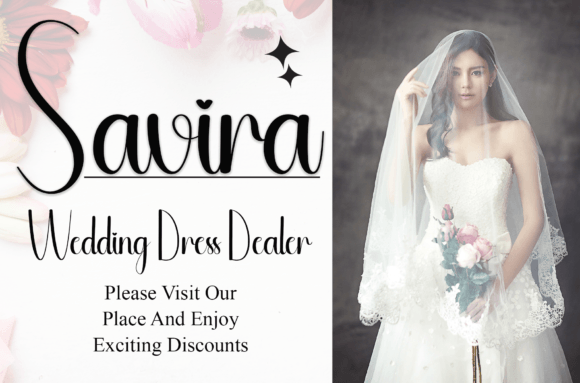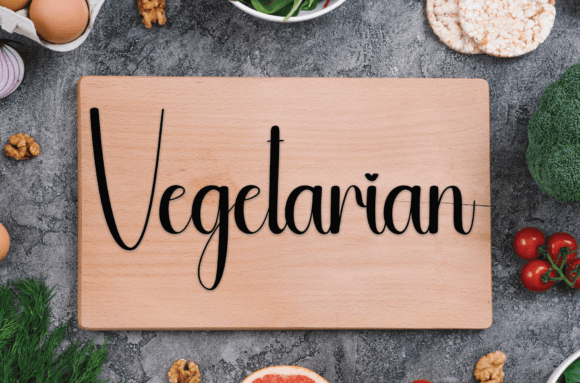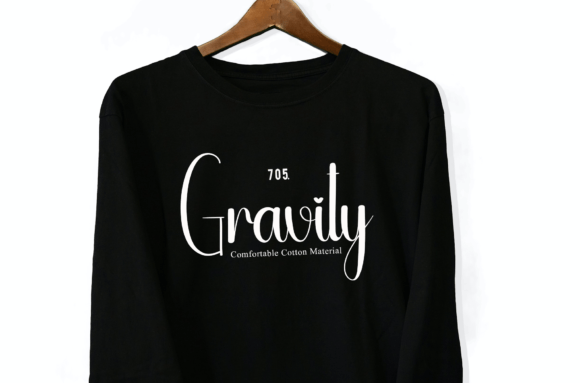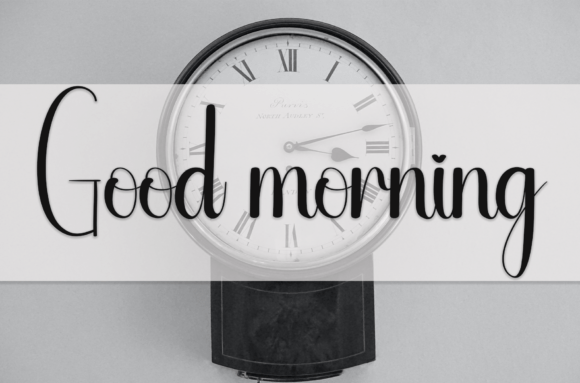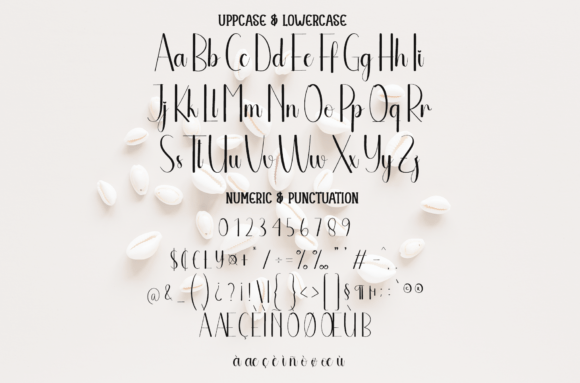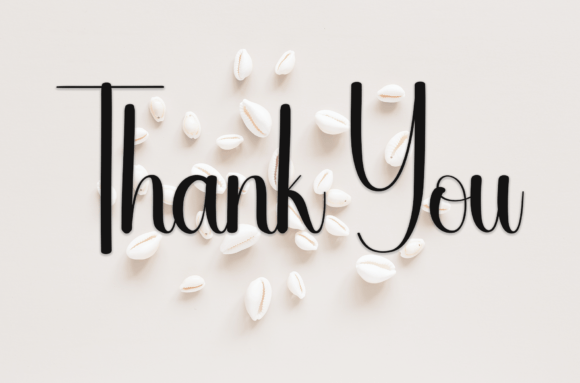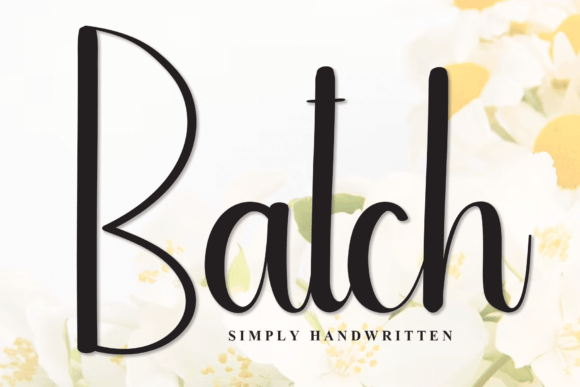
Introducing Batch Font: The Sweet and Friendly Handwritten Font for Your Creative Projects
Are you looking for a font that can add a touch of warmth and personality to your designs? Look no further than Batch Font, a sweet and friendly handwritten font that’s perfect for a variety of creative projects. In this article, we’ll take a closer look at Batch Font, its features, and how you can use it to elevate your designs.
What is Batch Font?
Batch Font is a beautifully crafted handwritten font that’s fresh, neat, and full of character. Its sweet and friendly tone makes it an ideal choice for designs that require a personal touch. Whether you’re creating wedding invitations, greeting cards, or any other type of design that needs a fun and playful twist, Batch Font is the perfect choice.
Key Features of Batch Font
So, what makes Batch Font so special? Here are some of its key features:
• Handwritten with love: Batch Font is a carefully crafted handwritten font that exudes warmth and personality.
• Fresh and neat: The font’s clean and fresh design makes it easy to read and perfect for a variety of applications.
• Sweet and friendly tone: Batch Font has a playful and approachable tone that’s sure to delight your audience.
• Versatile: This font can be used for a wide range of designs, from wedding invitations to social media graphics.
Use Cases for Batch Font
Batch Font is an incredibly versatile font that can be used for a variety of design projects. Here are some use cases to get you started:
• Wedding invitations: Add a touch of romance and whimsy to your wedding invitations with Batch Font.
• Greeting cards: Create beautiful and heartfelt greeting cards for special occasions like birthdays, anniversaries, and holidays.
• Social media graphics: Use Batch Font to create engaging and playful social media graphics that will help you connect with your audience.
• Branding and packaging: Add a personal touch to your brand’s packaging and marketing materials with Batch Font.
Tips for Using Batch Font
Here are some tips to help you get the most out of Batch Font:
• Pair it with other fonts: Experiment with pairing Batch Font with other fonts to create a unique and visually appealing design.
• Use it for headings and titles: Batch Font is perfect for headings and titles, where its playful tone can really shine.
• Experiment with colors: Try out different colors and color combinations to find the perfect match for your design.
Batch Font is a sweet and friendly handwritten font that’s perfect for designers and crafters looking to add a personal touch to their designs. With its fresh and neat design, versatile use cases, and tips for getting the most out of the font, Batch Font is an excellent choice for any creative project. So why not give it a try and see how it can elevate your designs?